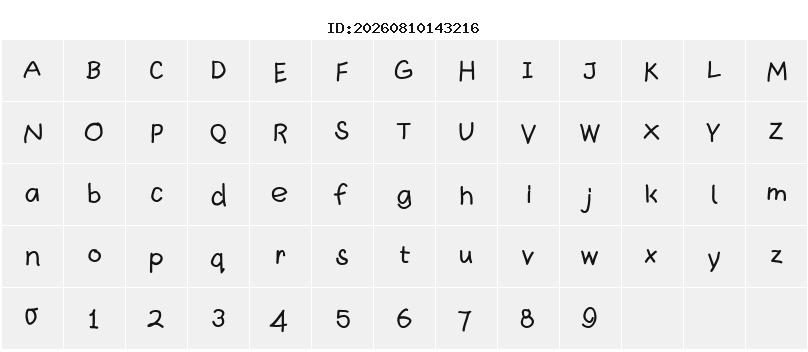
QuickWritten Preview
About QuickWritten.ttf
QuickWritten.ttf is a modern, elegant sans-serif font designed for ultimate readability and visual harmony. Perfect for branding, headlines, web design, and print materials.